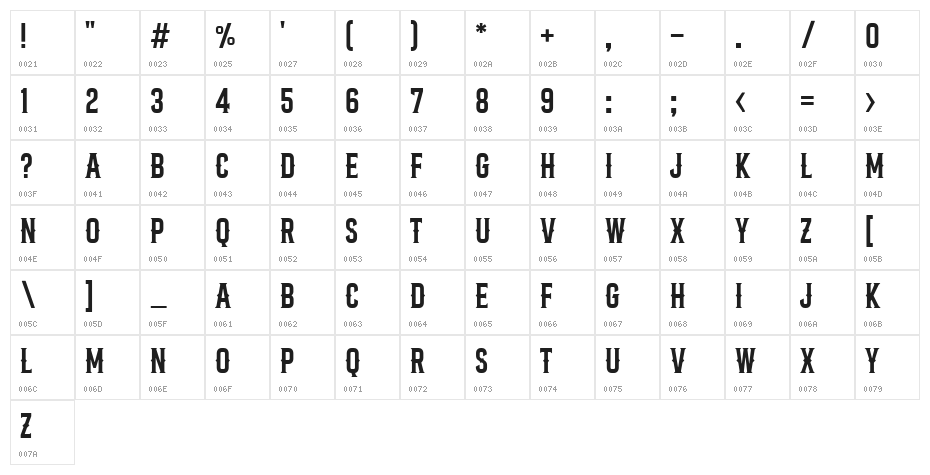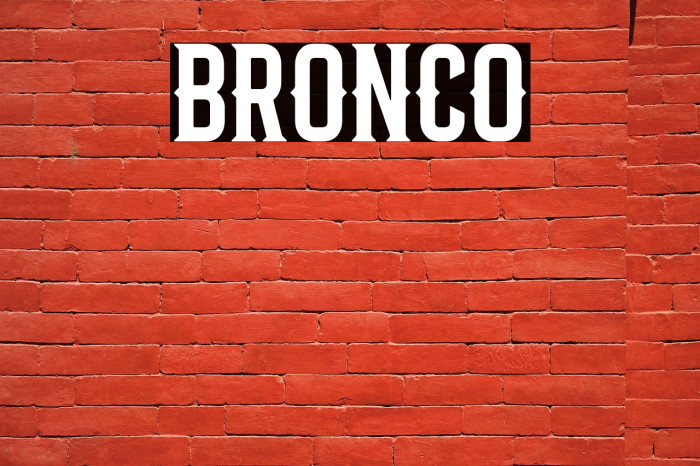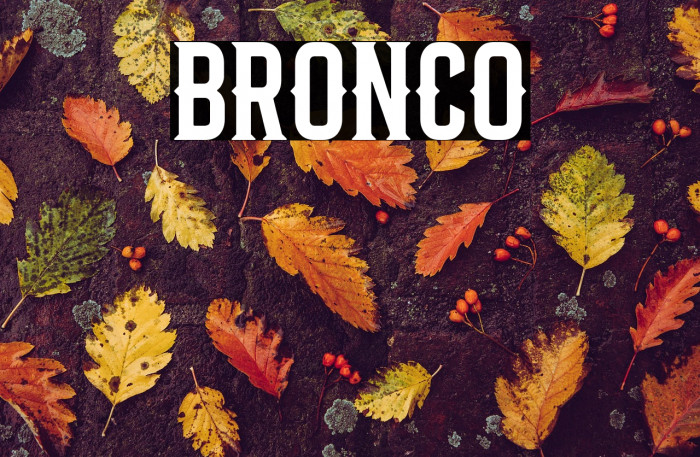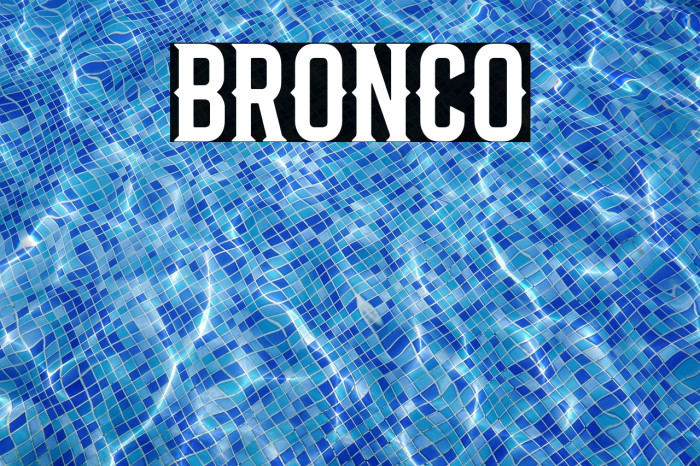
Bronco Font
Bronco Description
This font features a bold and impactful design with strong, angular serifs that give it a distinctive Western or vintage feel. The uppercase letters are tall and narrow, with a consistent stroke width that adds to their commanding presence. The lowercase letters maintain the same boldness, ensuring readability while retaining the font's unique character. Numbers and special characters are designed to match the overall aesthetic, making them suitable for various uses. The font's style is reminiscent of old Western signage, making it perfect for projects that require a touch of rugged nostalgia.
| Proposed Projects | Ideal for posters, branding, logos, and any design needing a vintage or Western theme. |